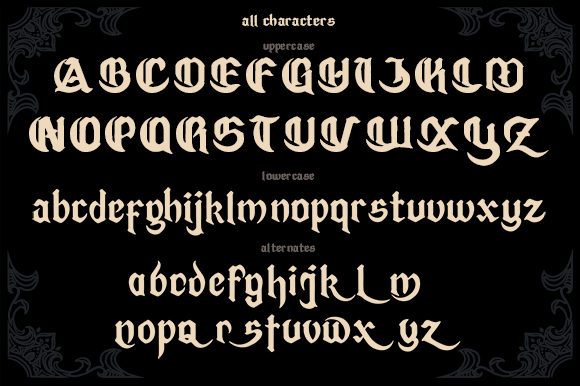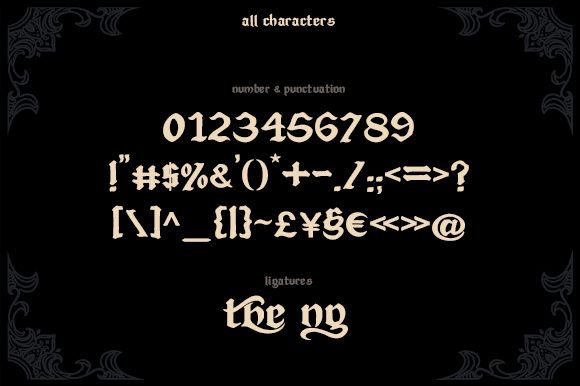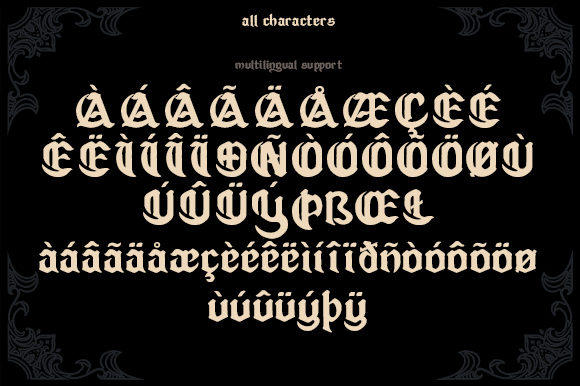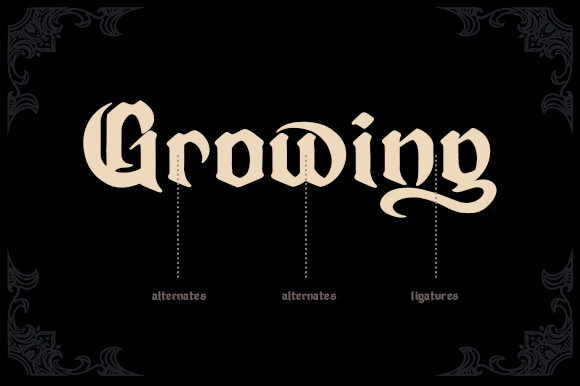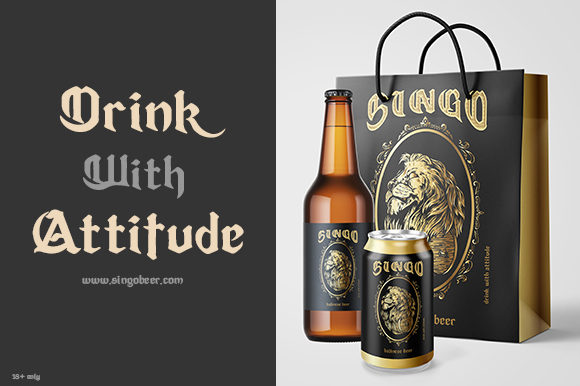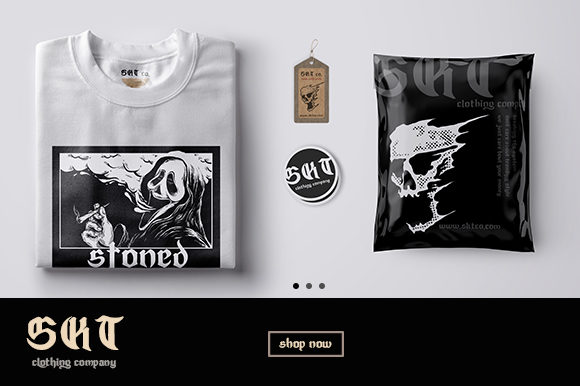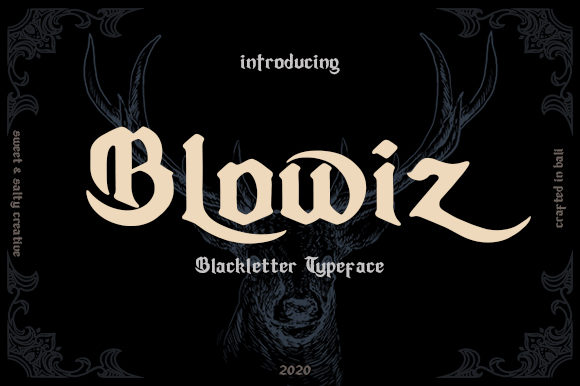
The Designer’s Dream Font: A Deep Dive into Blowiz
I’ll never forget the struggle I faced while working on a branding project for a luxury goods client. The brief required a font that exuded boldness, sophistication, and a touch of edginess. After hours of scouring font libraries and testing various combinations, I stumbled upon Blowiz – a game-changing blackletter font that instantly elevated the project. In this article, I’ll share my love for Blowiz, its features, and how to make the most of it in your designs.
An Honest Review of Blowiz
What I Love About Blowiz ✨
- ✅ Unique Character Set: Blowiz boasts chunky and extended characters that add a touch of elegance to any design.
- ✅ Versatility: Perfect for logos, branding, packaging design, and more – Blowiz is a true workhorse.
- ✅ Sophisticated Aesthetic: The font’s bold yet refined look makes it ideal for luxury brands and high-end designs.
- ⚠️ Limited Use in Body Text: Due to its chunky nature, Blowiz might not be the best choice for lengthy body text.
- ⚠️ Requires Careful Kerning: Some character combinations may require manual kerning for optimal readability.
The Story Behind Blowiz
Blowiz was designed by a team of typographers who sought to create a modern, versatile blackletter font. Inspired by traditional calligraphy and lettering techniques, they crafted a unique character set that balances boldness with sophistication. The result is a font that’s both elegant and attention-grabbing.
| What type of projects is Blowiz best suited for? | Blowiz excels in logos, branding, packaging design, and high-end advertising materials. |
| Can I use Blowiz for body text? | While possible, Blowiz is better suited for headlines and titles due to its chunky nature. |